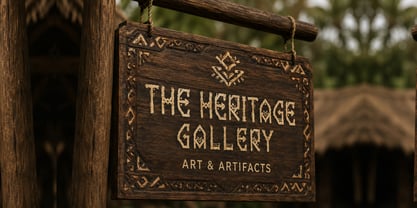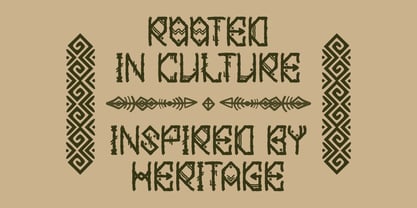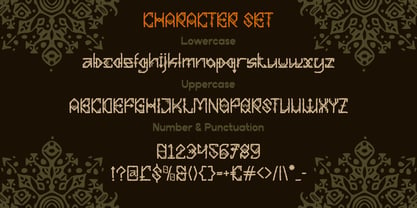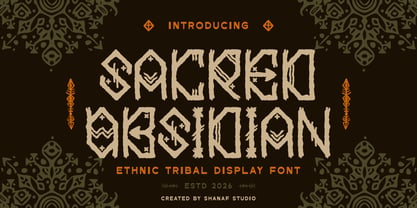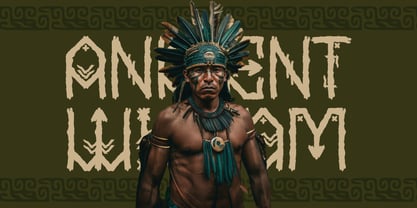
Sacred Obsidian
Die Schriftfamilie Sacred Obsidian wurde von Yesie Erma Yunita entworfen und von Shanaf veröffentlicht. Sacred Obsidian enthält 1 Stile. Mehr über diese Familie
Sacred Obsidian Ethnic Tribal Display Font brings a carved letter look with angular cuts and hand-drawn edges. The characters feel tall, irregular, and symbolic, with sharp stems and tribal marks inside several forms. Its rough outline adds a handmade artifact mood without losing strong headline power. This font suits heritage logos, cultural branding, museum projects, craft studios, art galleries, and traditional product labels. It also works for posters, book covers, stickers, invitations, and historical event titles.
The visual character leans toward ethnic, tribal, classic, rustic, and traditional themes. Each letter carries decorative details, arrows, diamond shapes, and carved accents. These features help brands create a strong cultural voice. Designers can use it for gallery signs, handmade product packaging, folklore events, cultural exhibitions, and creative studio identity. It also fits businesses around art, artifacts, handmade goods, local tourism, nature retreats, and heritage-inspired restaurants.
Sacred Obsidian Ethnic Tribal Display Font works beyond one cultural niche. It can support global projects with ancient, natural, or handcrafted themes. Use it for logo systems, advertising headlines, packaging labels, poster titles, magazine layouts, book covers, and craft branding. Its uppercase and lowercase set gives designers more layout flexibility. The font also includes numbers, punctuation, and multilingual support for wider branding needs.